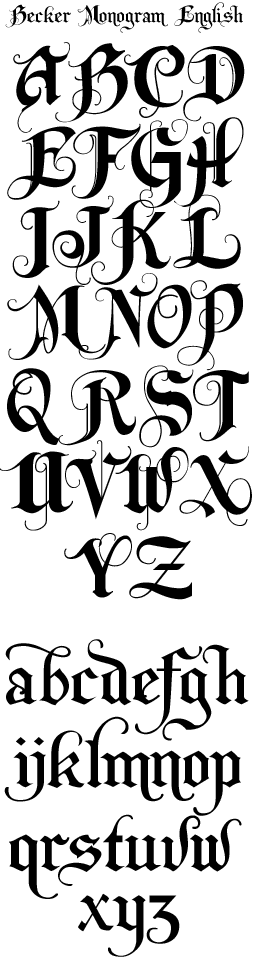
LHF Monogram English
Al Becker inspired gothic style comprised of his Monogram and Old English styles. Includes lowercase, punctuation and numerals.
Includes numbers & punctuation